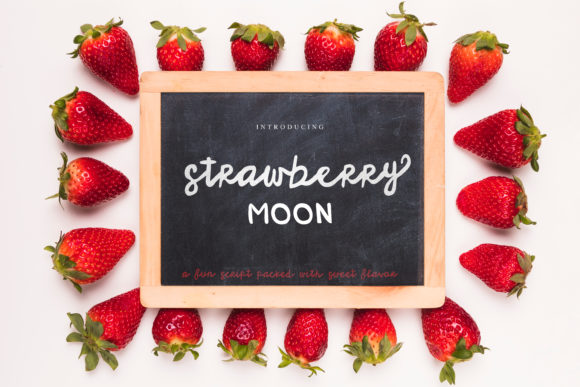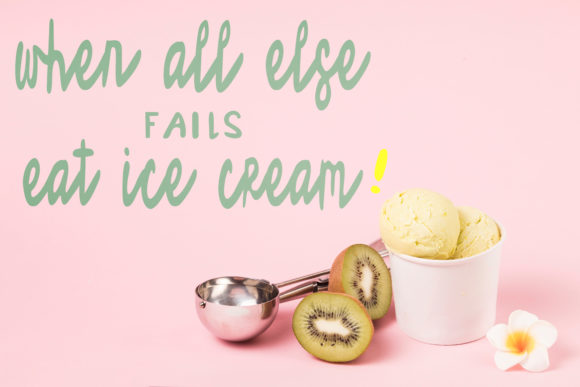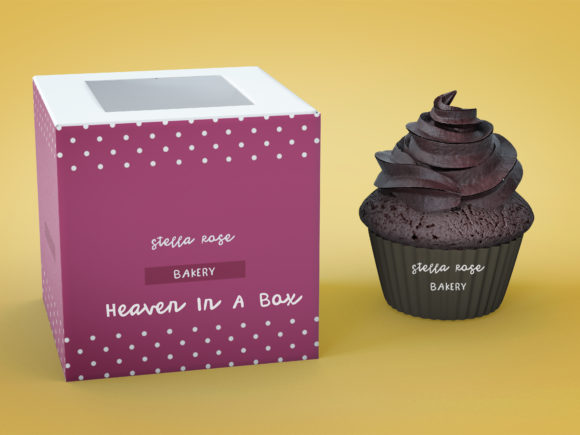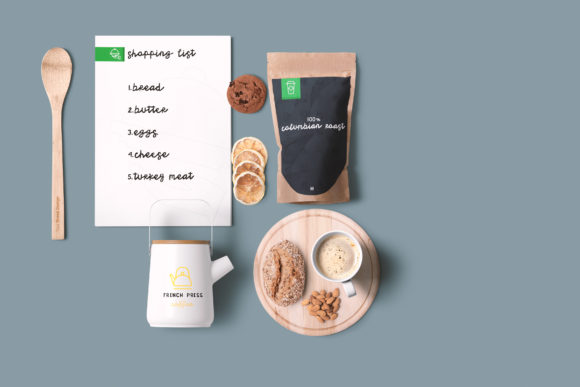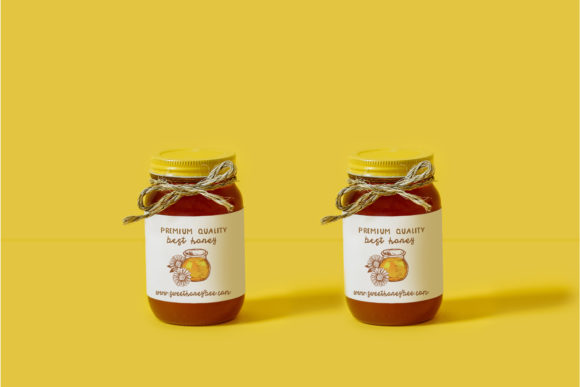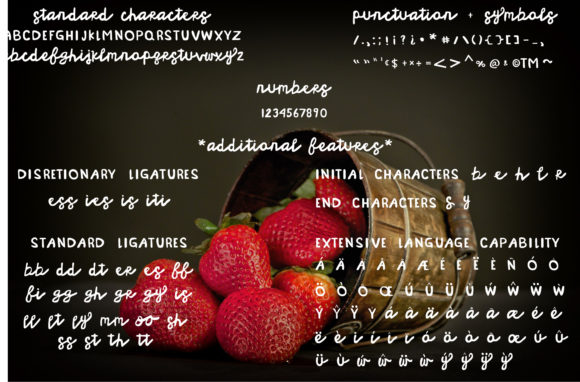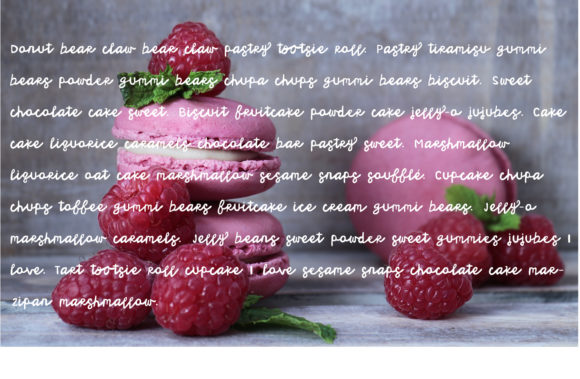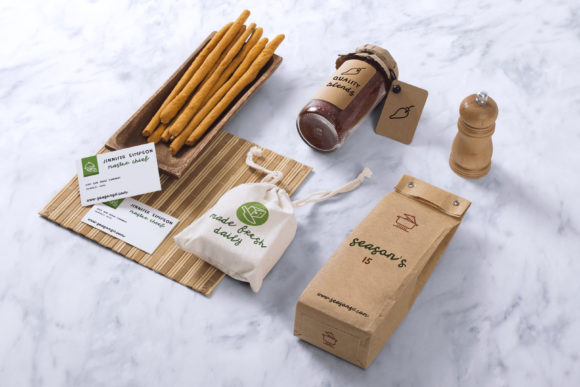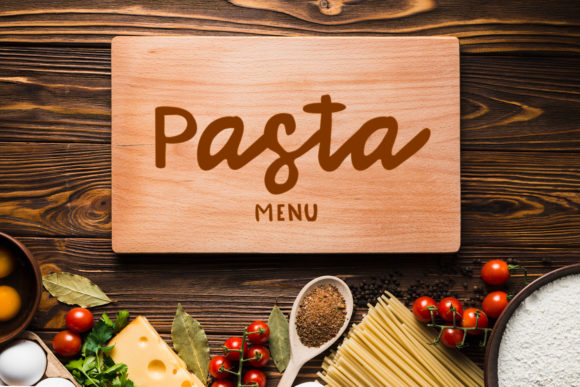
Strawberry Moon Font
About Strawberry Moon Font
Strawberry Moon is a sweet and delicious script with a unique approach to design. Get inspired by its charming appeal.